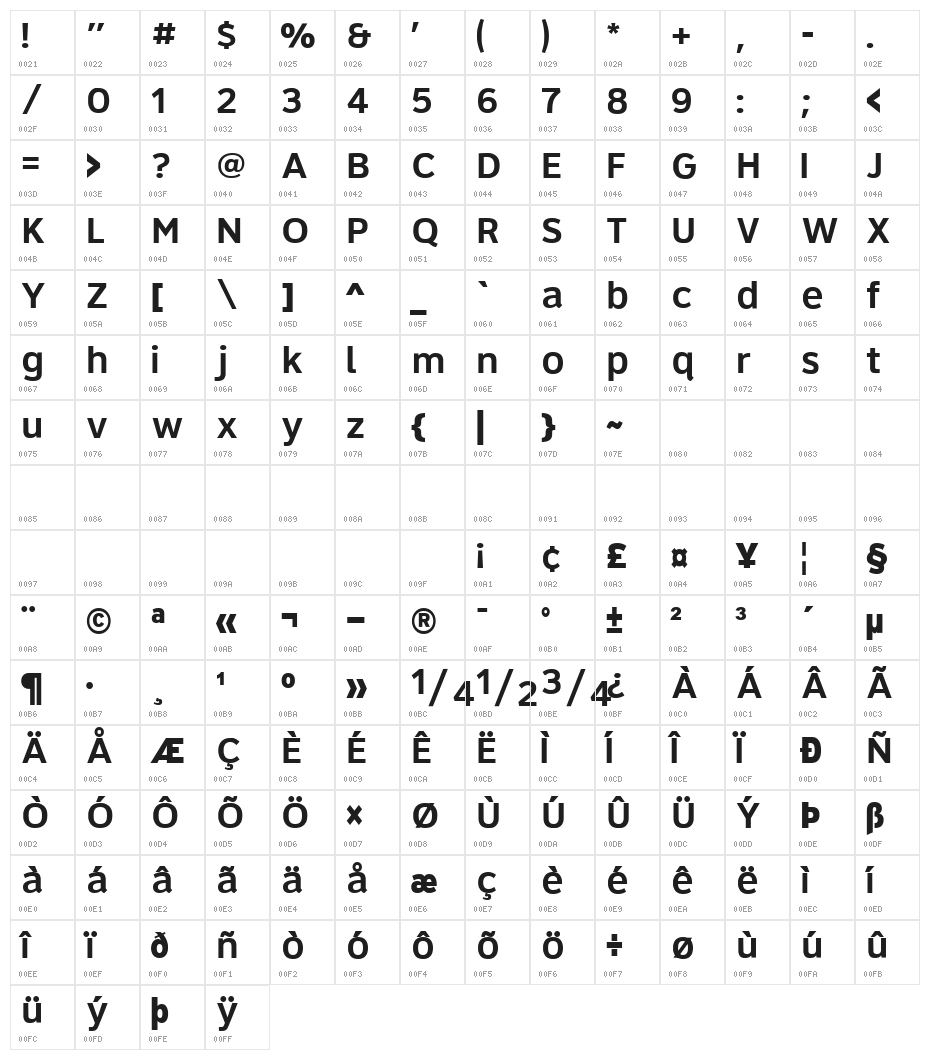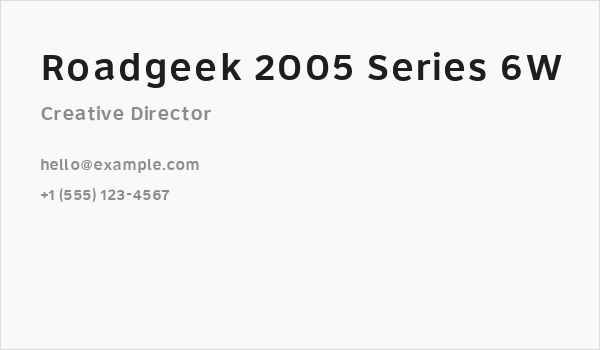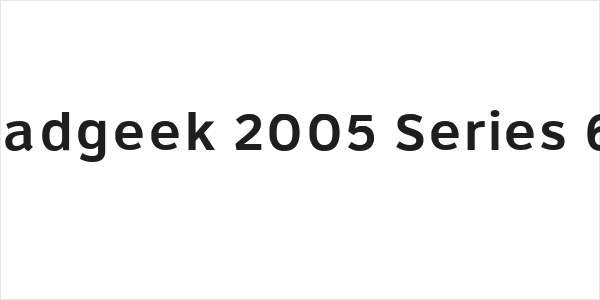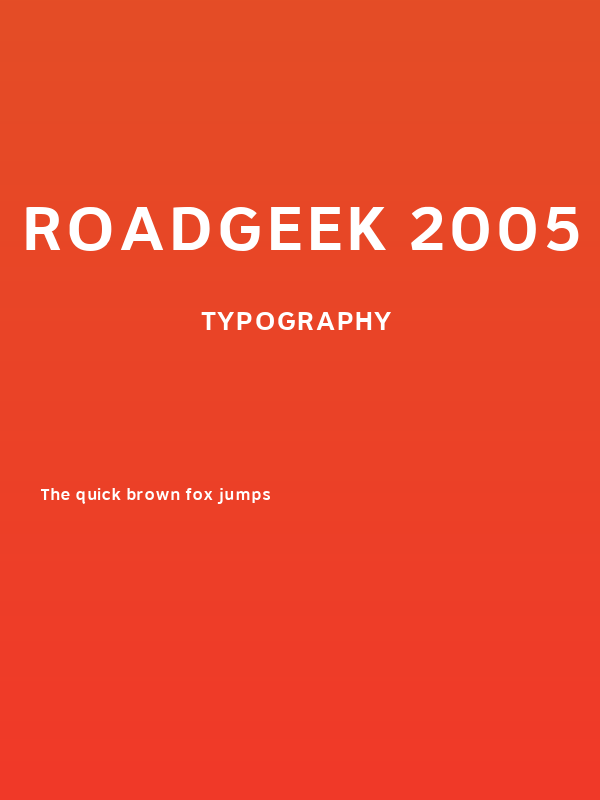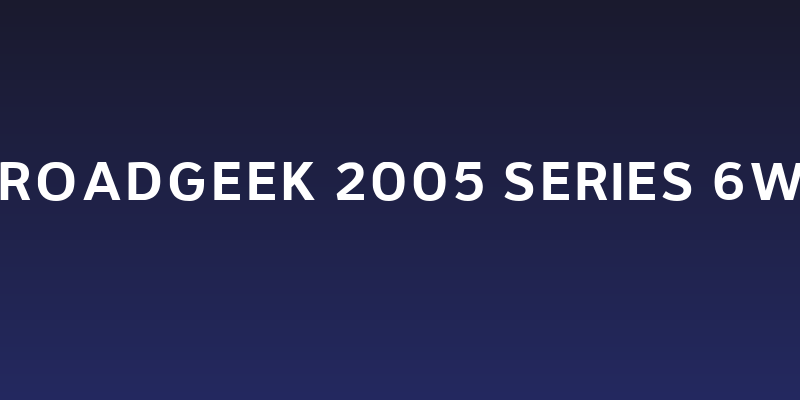
Roadgeek 2005 Series 6W Font
Roadgeek 2005 Series 6W Description
This font features a clean and modern sans-serif design, characterized by its straightforward and highly legible letterforms. The characters are evenly spaced, providing a balanced and harmonious appearance. The uppercase letters are bold and assertive, while the lowercase letters maintain a consistent and smooth flow. The numerals are clear and easy to read, making them suitable for various applications. The special characters are well-integrated, maintaining the overall aesthetic of the font. This typeface is versatile and can be used in a wide range of design projects.
| Use Case | Headlines, Signage, Digital interfaces |
| Proposed Projects | Ideal for road signage, informational displays, branding, and digital interfaces. |